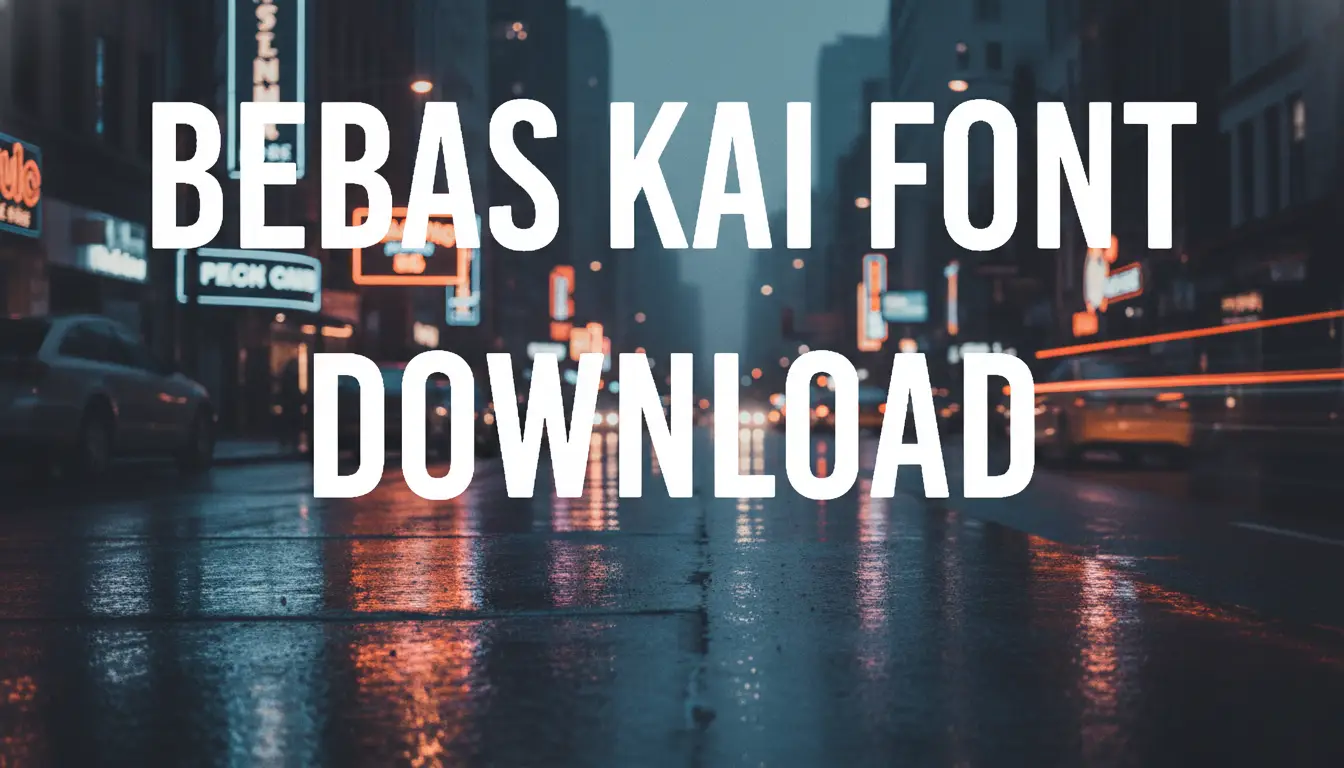
Ryoichi Tsunekawa designed Bebas Kai and published it through his independent Japanese foundry, Dharma Type, as a popular all-caps geometric sans-serif display font. Released as a robust modification of his legendary Bebas and Bebas Neue typefaces, the design introduces a highly intentional stylistic change by swapping out the sharp, rigid corners of the original font for subtly softened, rounded terminals.
BeBas Kai is a sans serif font created by Ryoichi Tsunekawa and released through Dharma Type (2014).
In the notes inside the font file, Ryoichi Tsunekawa describes it like this: “Designed by Ryoichi Tsunekawa from Dharma Type in 2014 based on Bebas(2005).”
- Designer: Ryoichi Tsunekawa
- Publisher: Dharma Type